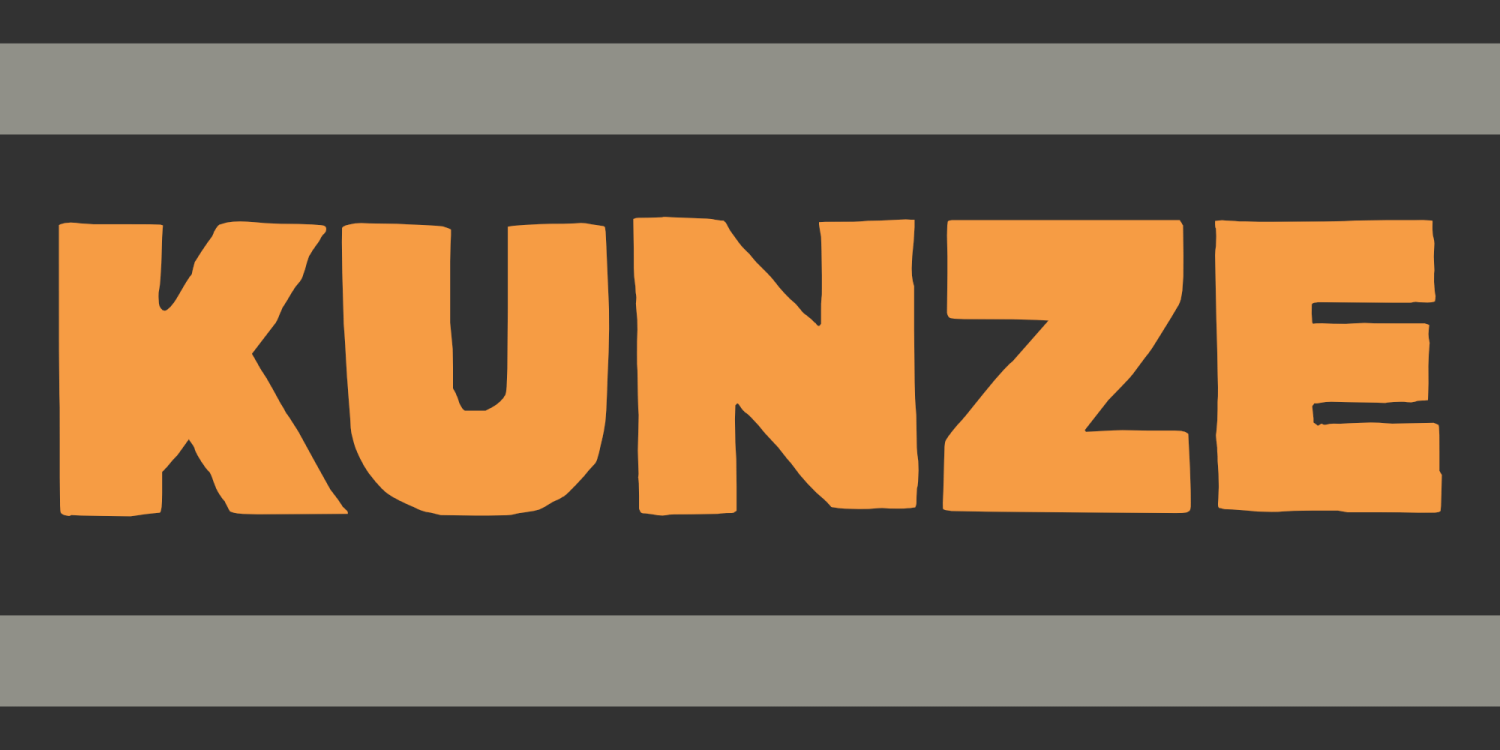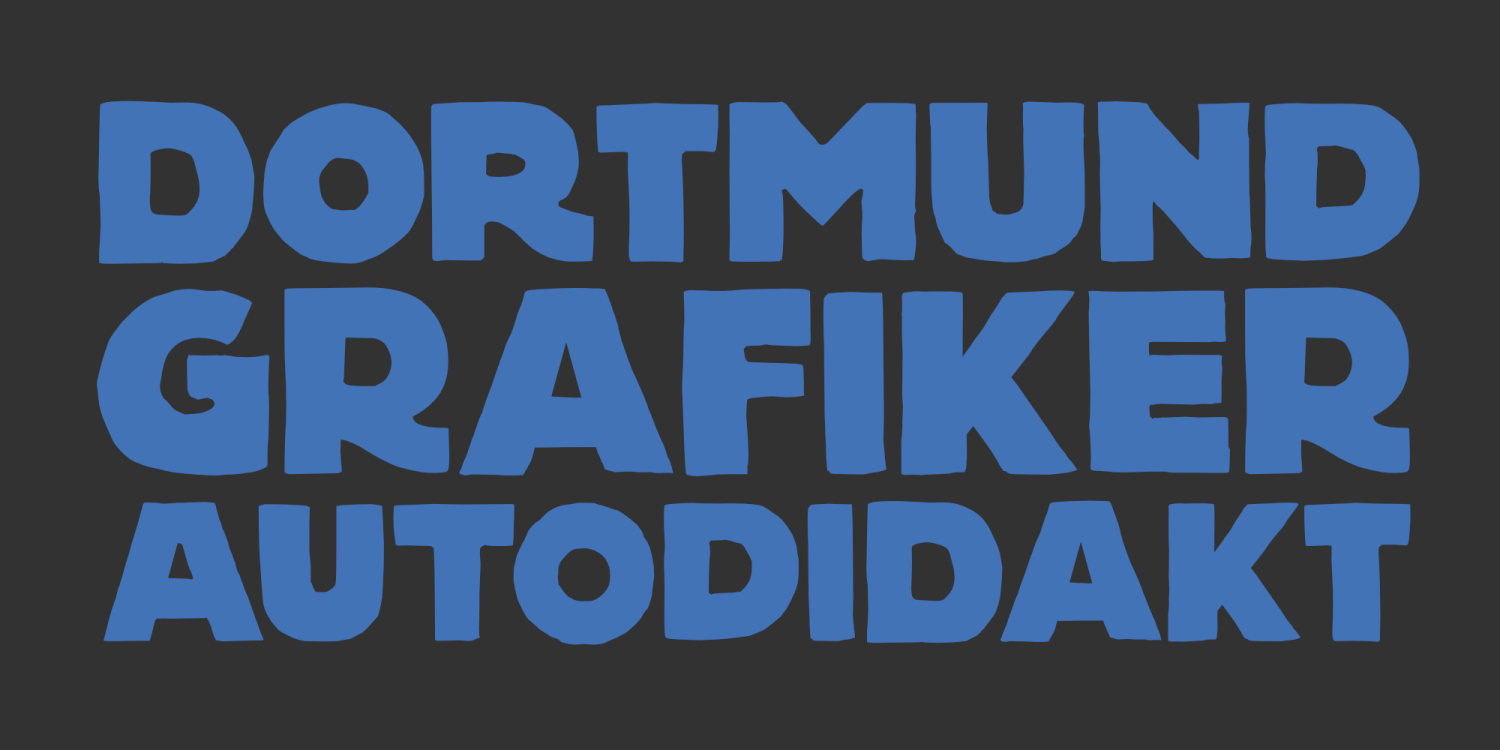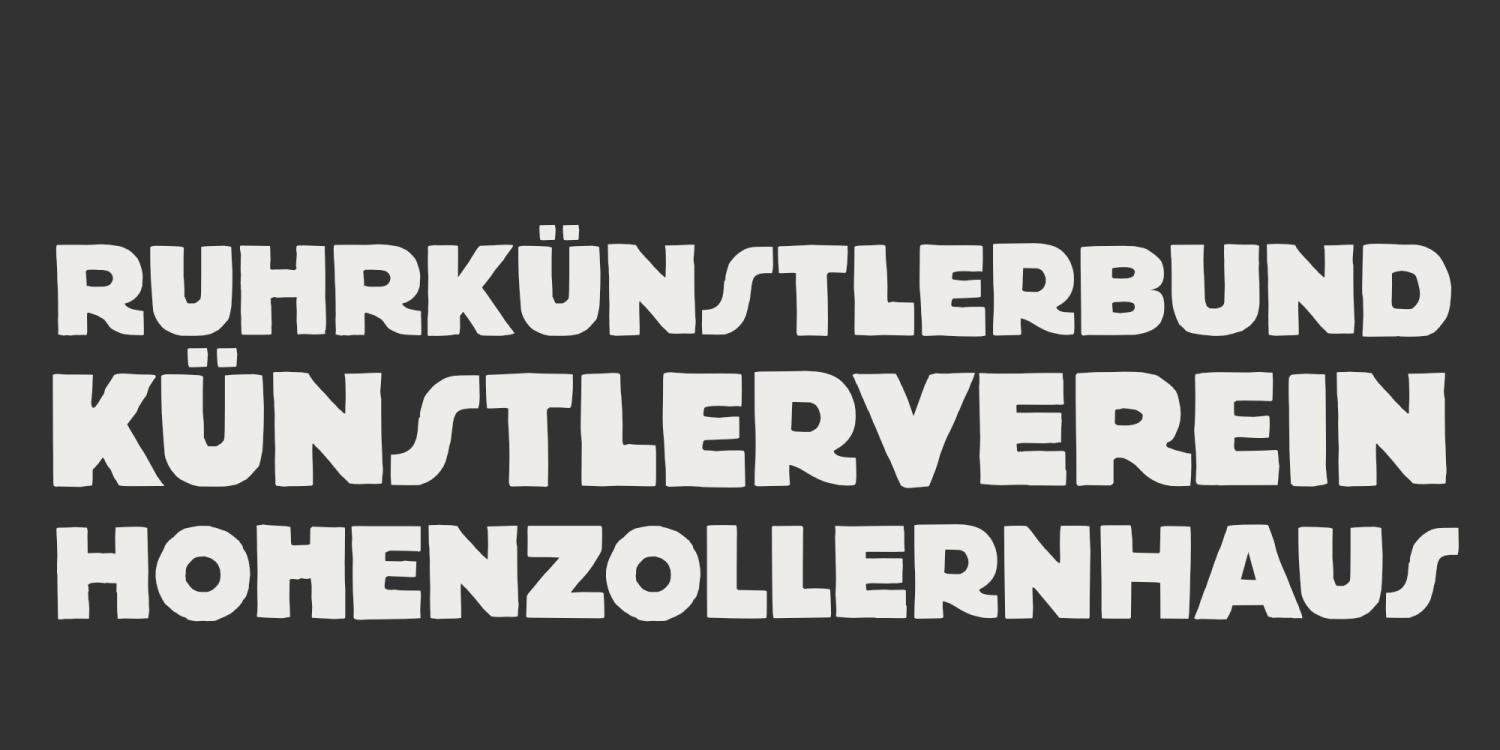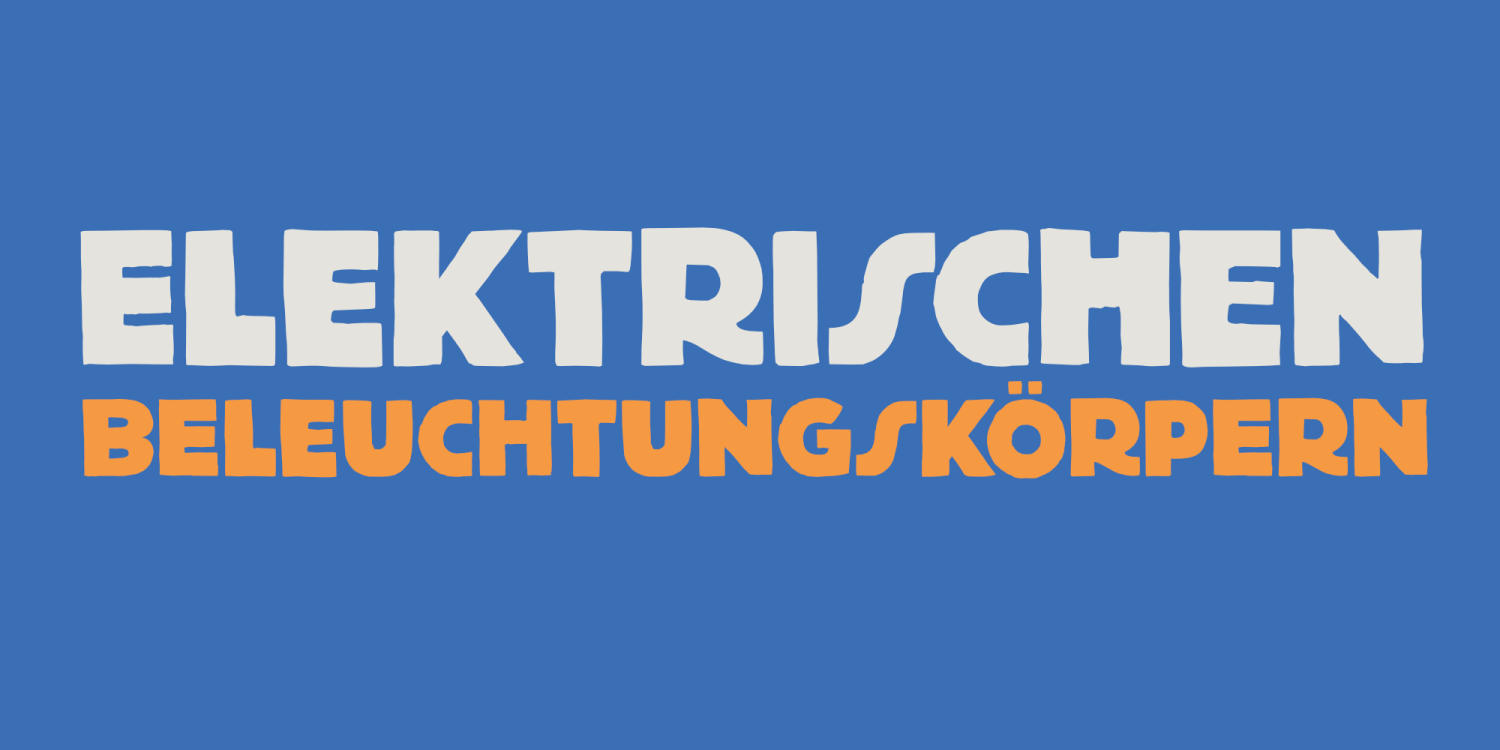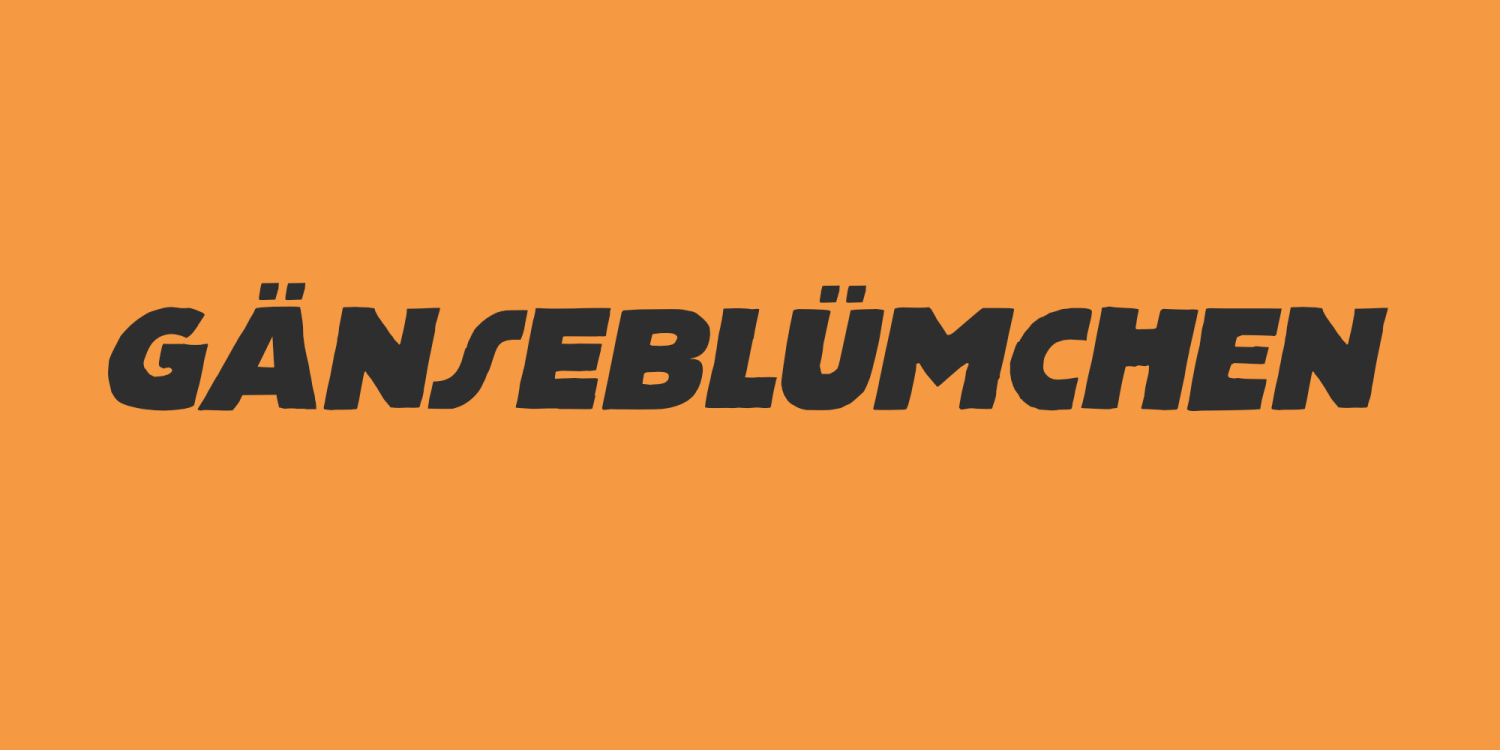
Kunze Font Family by Kitchen Table Type Foundry
Kunze font was inspired by the work of German graphic artist Carl Kunze (Minden, 1884). Kunze is a fat display font; a little rough around the edges, a little wonky in places, but very distinguishable and useful.